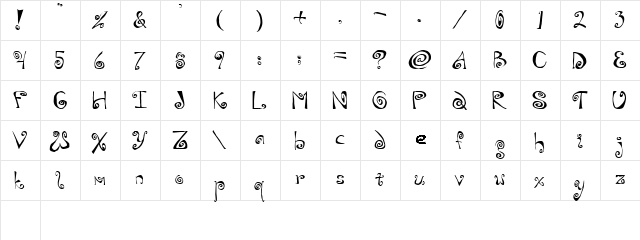
Swirly Regular
Design Context for Swirly Typeface
Swirly is built around its visual character rather than neutral utility — its distinctive forms are designed to make an impression at display sizes.
Font Pairing: Pair with a clean neutral sans-serif for body copy to let Swirly's character lead without overwhelming the composition.
Pro Tip: Use Swirly exclusively at display sizes — it was designed to be seen, not read at length. Let a neutral companion handle body copy.